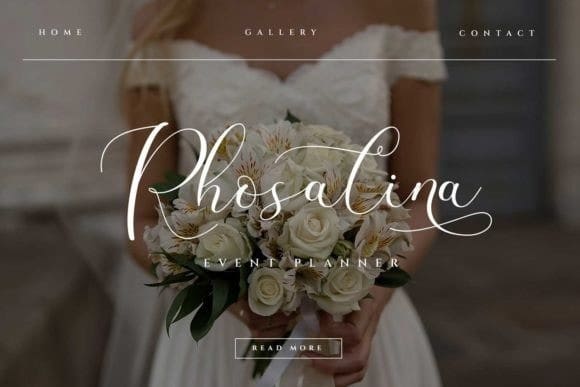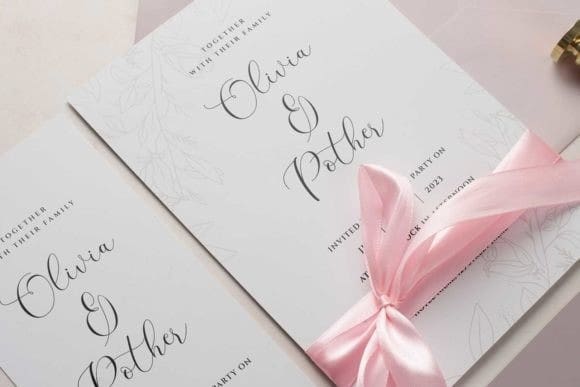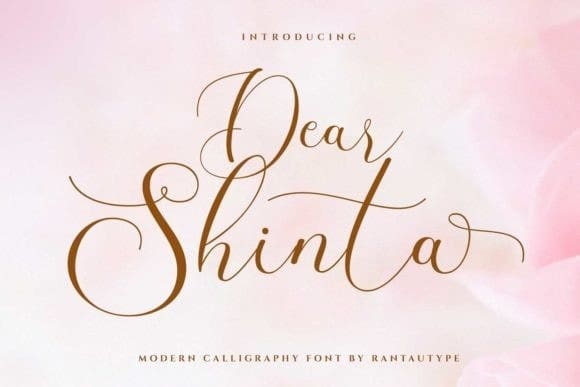
Dear Shinta Font
Dear Shinta Font is a stylish script font that captures the essence of modern elegance. Its fluid letterforms and graceful strokes create a sense of sophistication and beauty. Perfect for branding, logos, and wedding invitations, Dear Shinta adds a touch of refinement and allure to any project. Its versatility and timeless appeal make it a must-have for designers seeking a chic and sophisticated look.